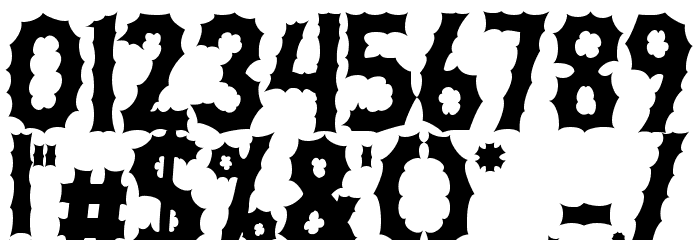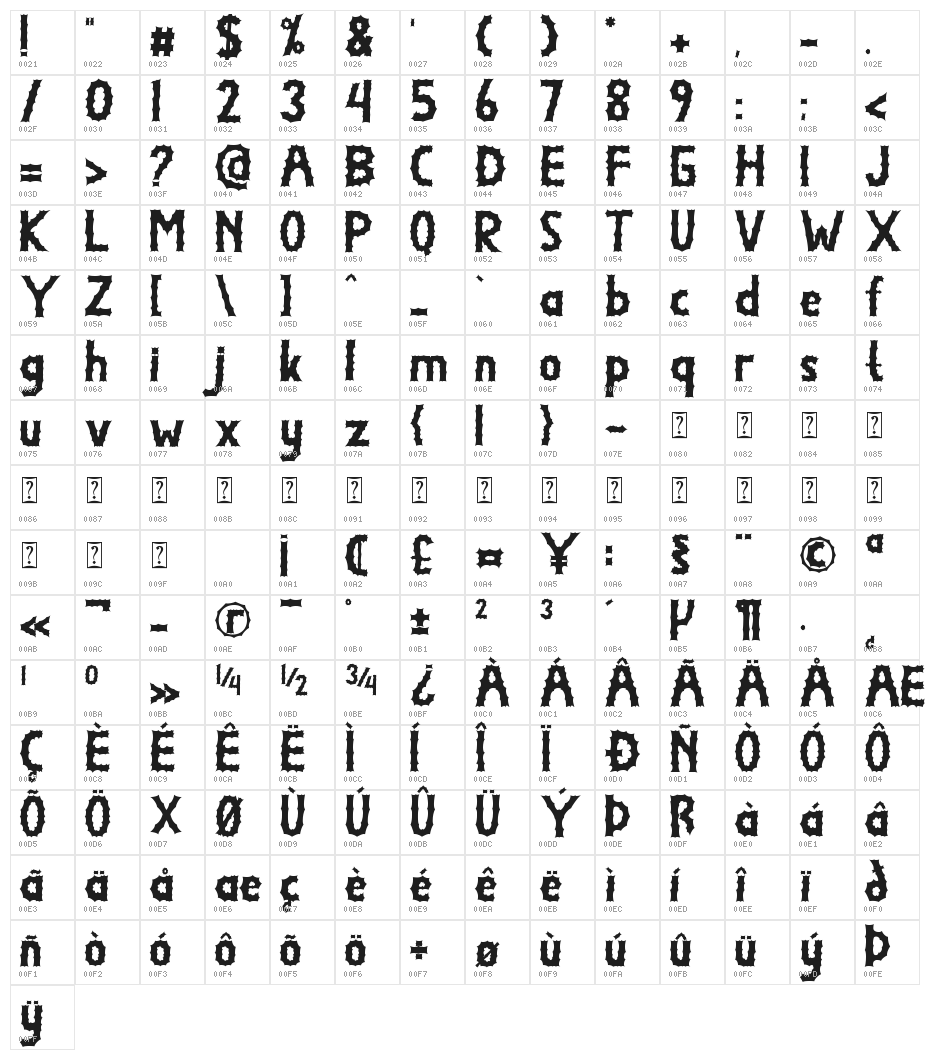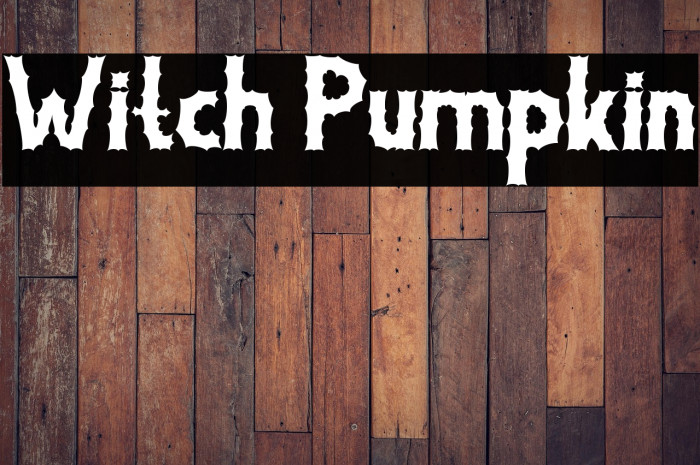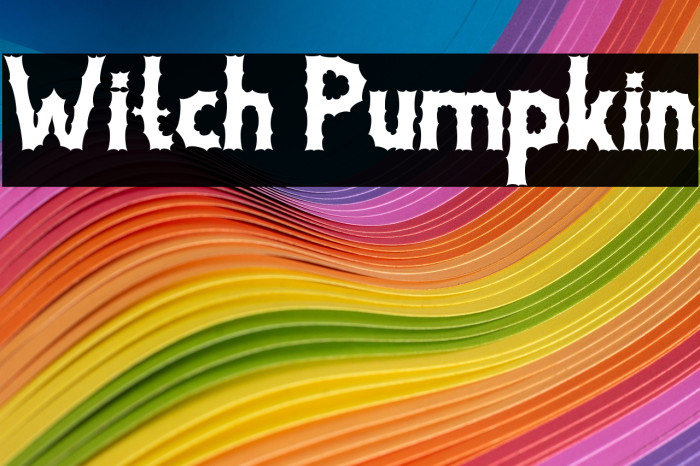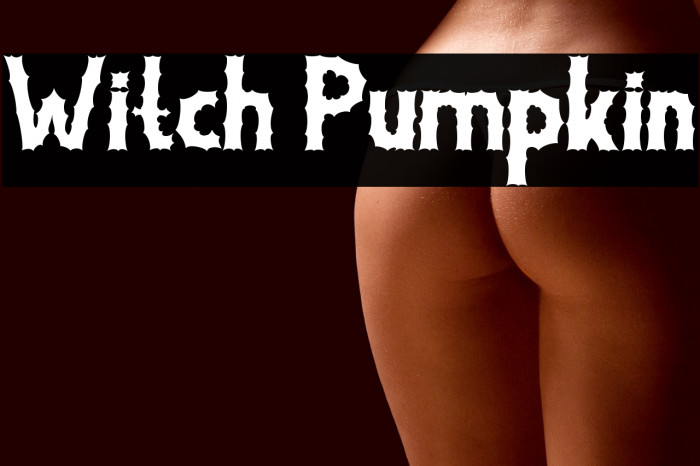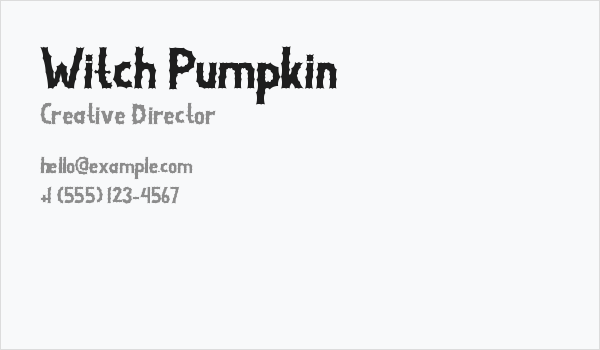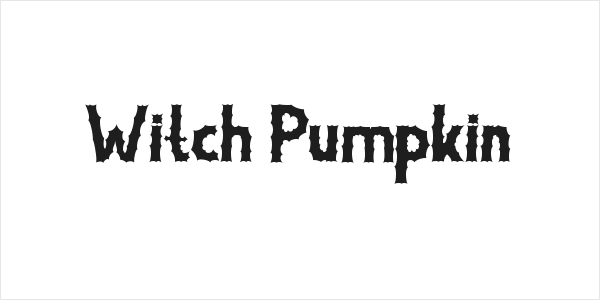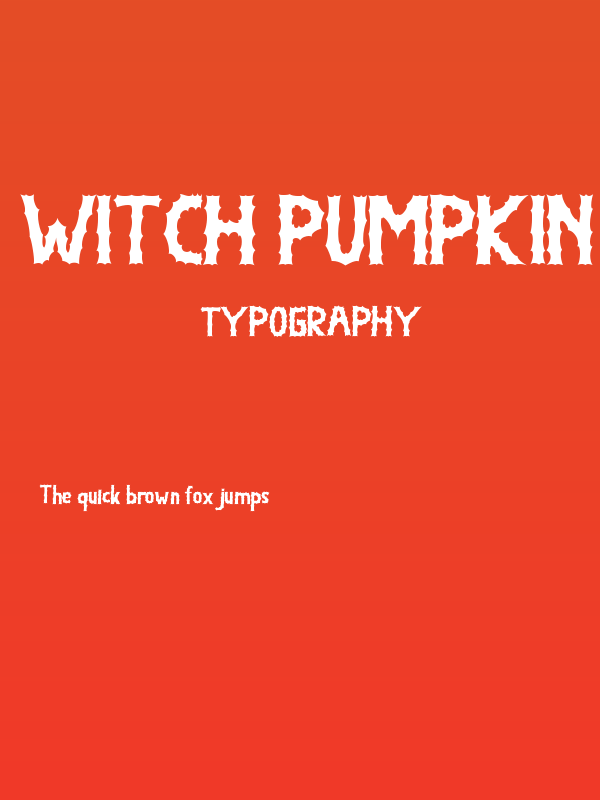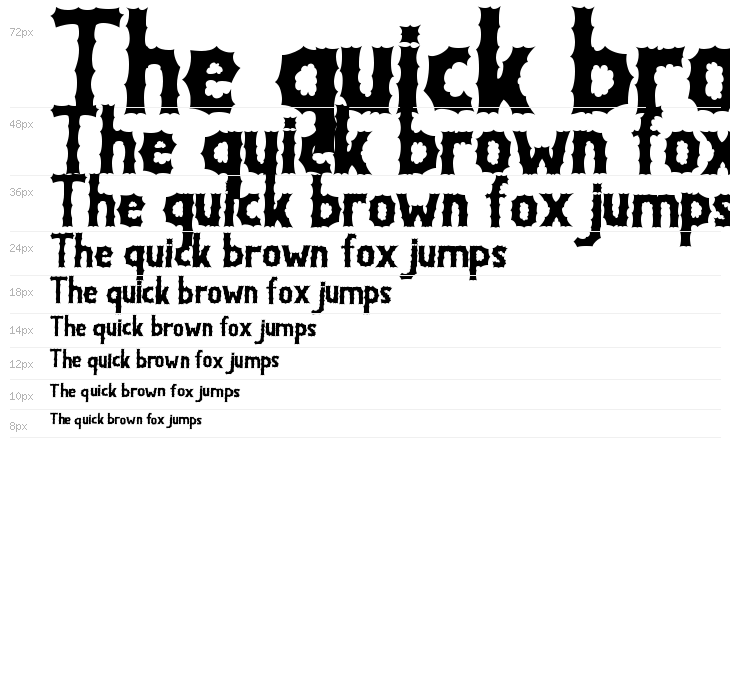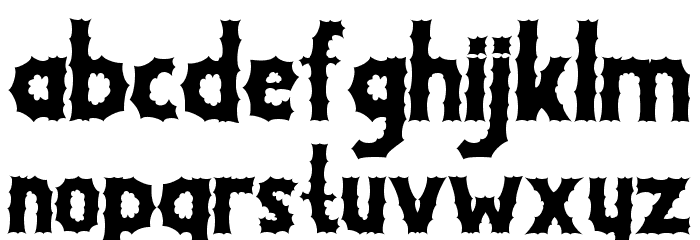
Witch Pumpkin Font
Witch Pumpkin Description
This font features a playful and spooky design, reminiscent of Halloween themes. Each character is crafted with jagged edges and irregular shapes, giving the impression of being carved out of a pumpkin. The bold and decorative style is eye-catching, making it ideal for seasonal projects. The uppercase and lowercase letters maintain a consistent design, with numbers and special characters following the same thematic approach. The font's unique appearance is perfect for creating a festive atmosphere.
| Proposed Projects | Ideal for Halloween-themed posters, party invitations, seasonal advertisements, and decorative banners. |